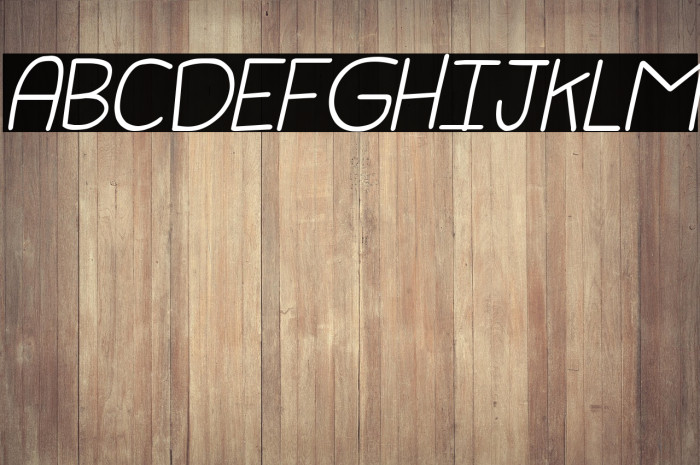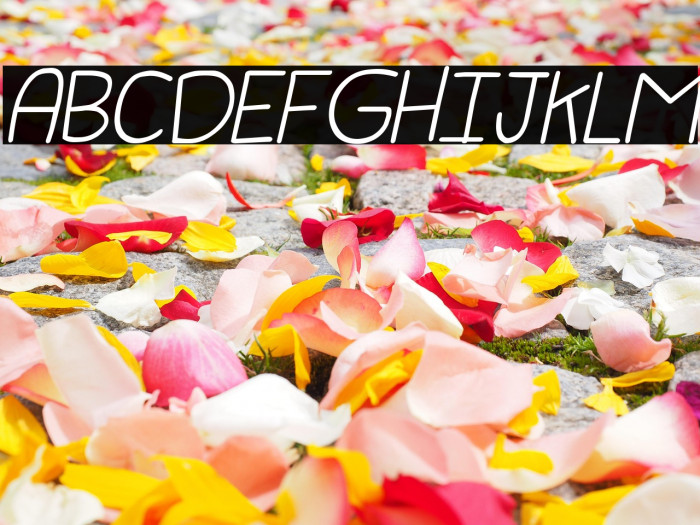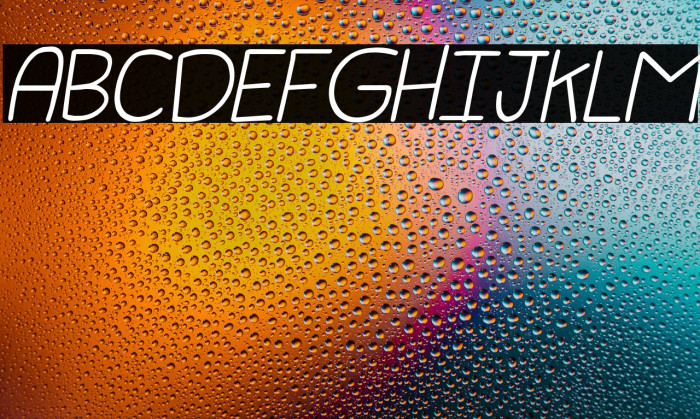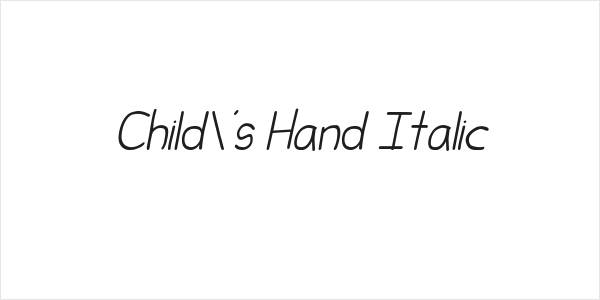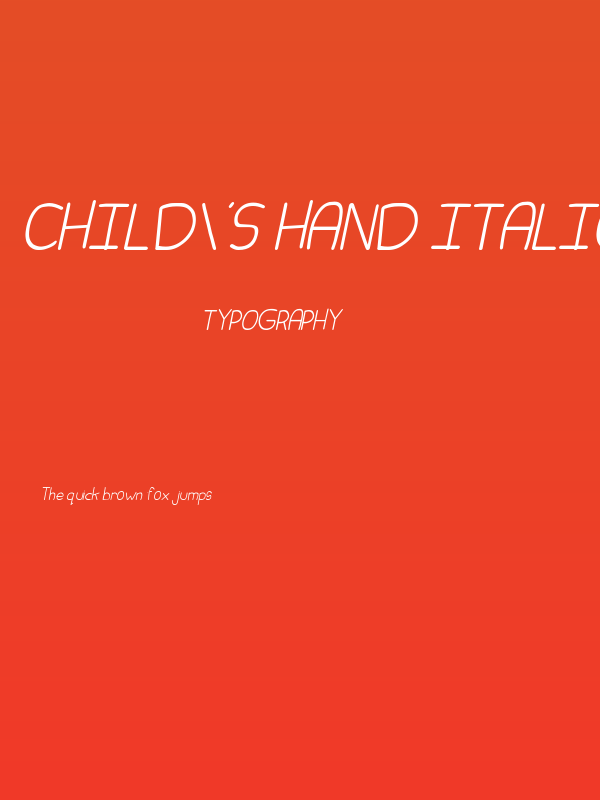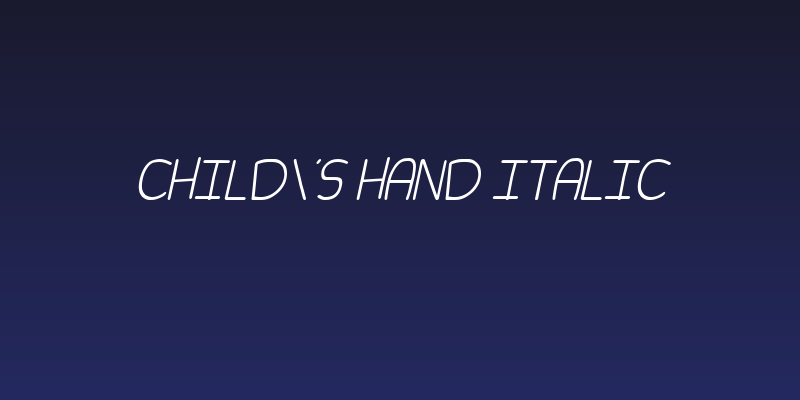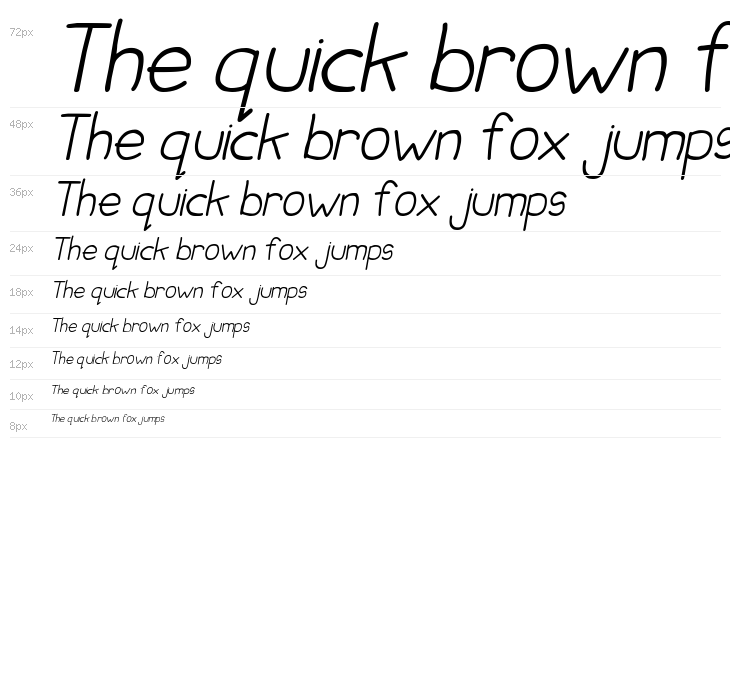
Child's Hand Italic Font
Child's Hand Italic Description
This playful and informal font mimics the natural handwriting of a child, featuring a casual and friendly appearance. The letters are slightly slanted, adding a dynamic and lively feel. The strokes are smooth and rounded, giving it a soft and approachable look. This font is characterized by its simplicity and readability, making it ideal for projects that require a personal touch. The numerals and special characters maintain the same whimsical style, ensuring consistency throughout any text. Its unique charm makes it perfect for creative and informal applications.
| Proposed Projects | Ideal for children's books, educational materials, greeting cards, and playful branding. |